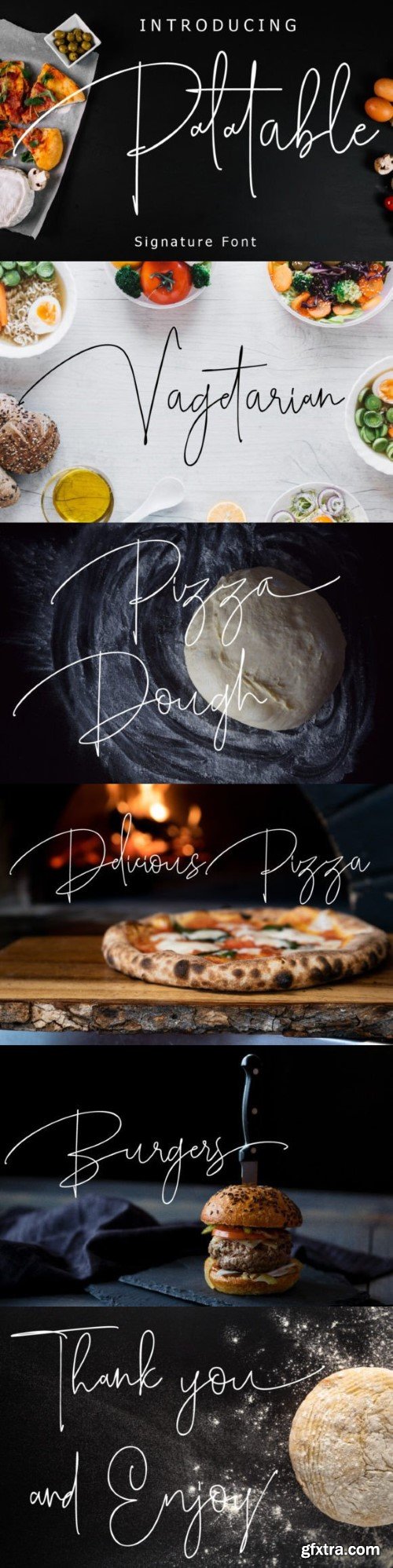
Palatable Font a work that is purely handwritten, has its own characteristics with the style of monoline It is perfect for invitations, signatures, blogs, social media, business cards, product brands, also equipped with 63 ligature.
Palatable is Hand lettering font, suitable for signature and hand written manuscript, include 220 glyphs.